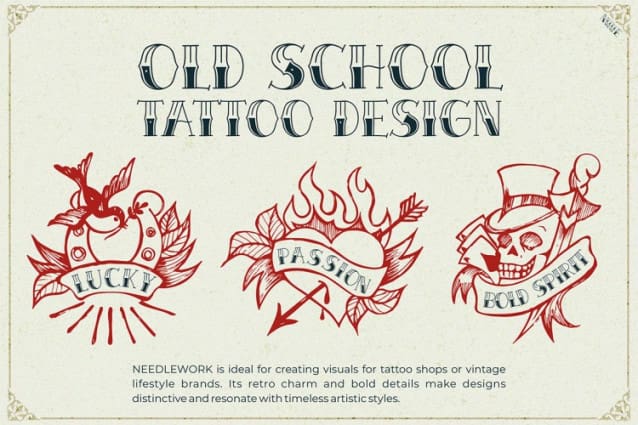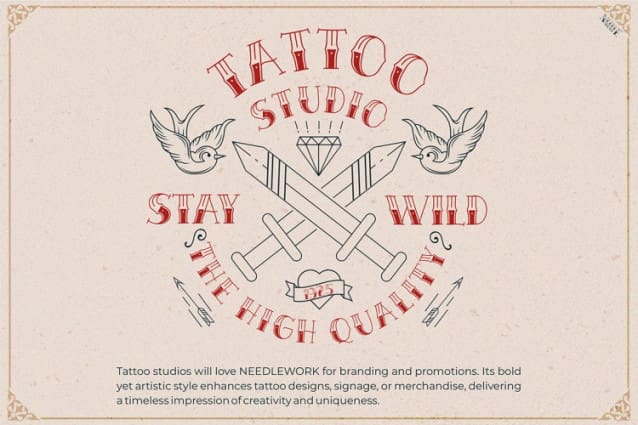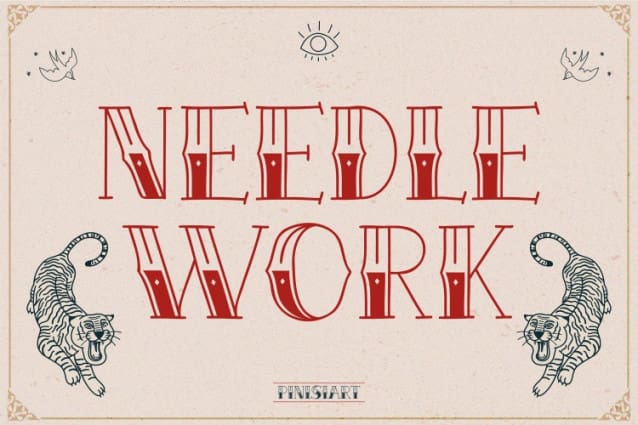
Needlework Font
Needlework Font is a bold and distinctive typeface inspired by traditional tattoo aesthetics and vintage illustration styles. Its sharp edges and handcrafted design reflect the rebellious and artistic spirit of tattoo culture. The font combines elegant curves, dramatic serifs, and intricate details to stand out in any design. Each letter features diamond-shaped motifs, adding a decorative and eye-catching touch that enhances its uniqueness.
This font balances modern and classic design elements, making it versatile for various projects. It works well in headlines, logos, and posters where a bold impact is essential. Additionally, its handcrafted look pairs beautifully with both minimalistic and elaborate compositions. Whether used for print or digital media, Tattoo Font Needlework brings energy and personality to your designs.
The typeface is not only visually striking but also highly adaptable. It excels in projects tied to tattoo culture while also fitting broader creative needs. By blending boldness with refinement, it appeals to a range of aesthetics, from edgy and rebellious to vintage and elegant. Its unique features make it a great choice for designers looking to stand out.